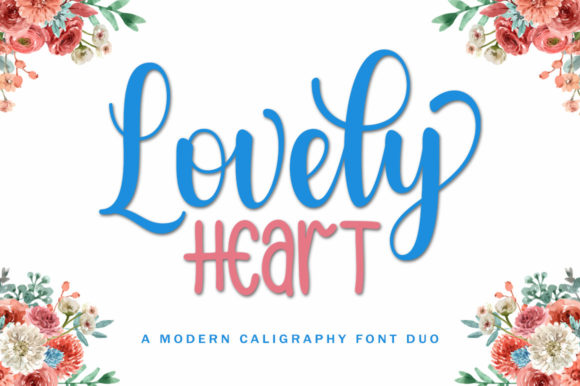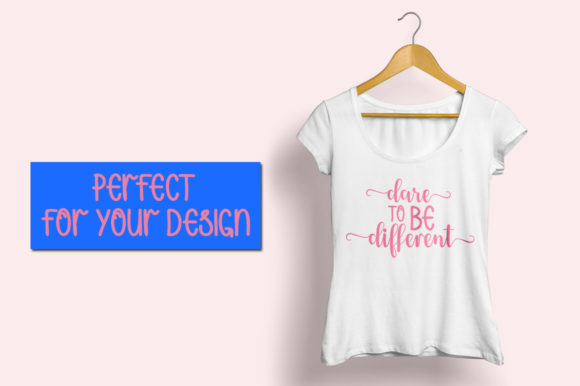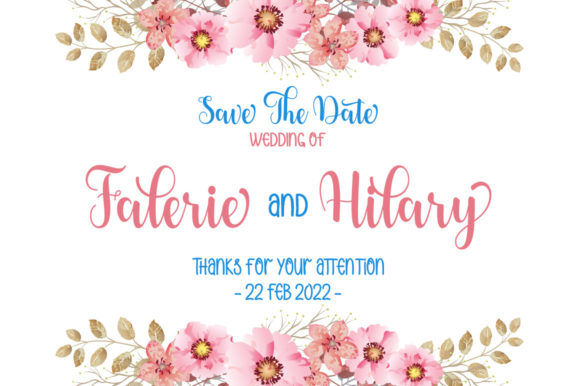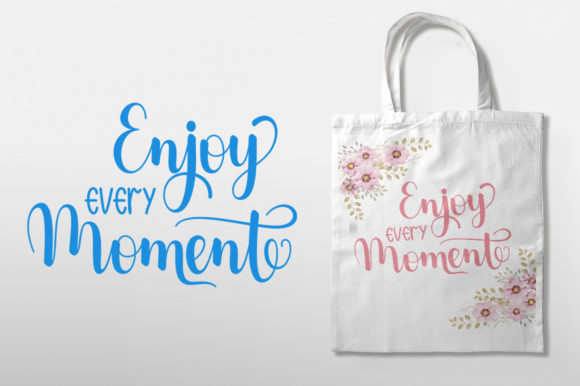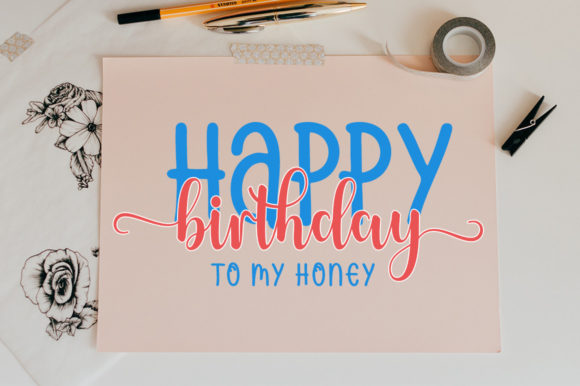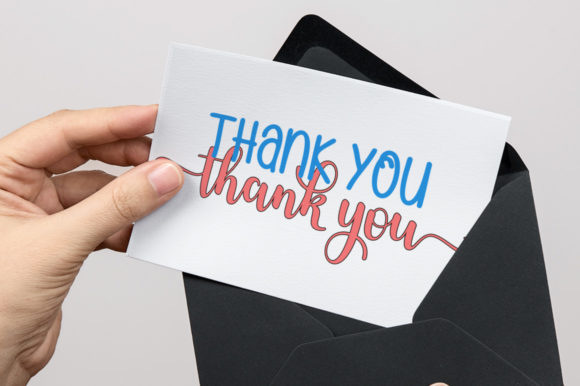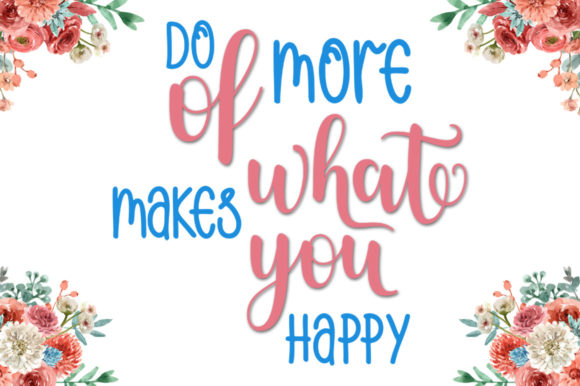
About Lovely Heart Font
Lovely Heart is a beautiful and delicate duo font (sans serif and script). This font is PUA encoded which means you can access all of the glyphs and swashes with ease! Fall in love with its incredibly versatile style and use it to create spectacular designs!